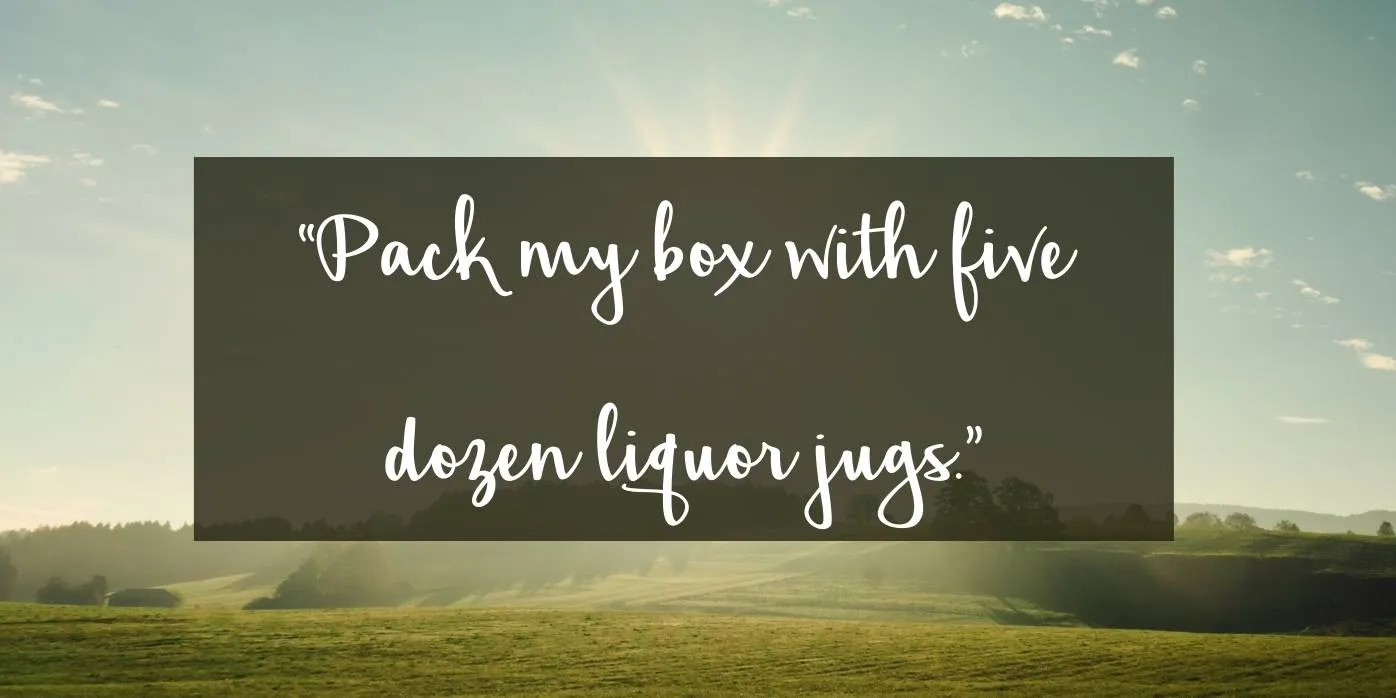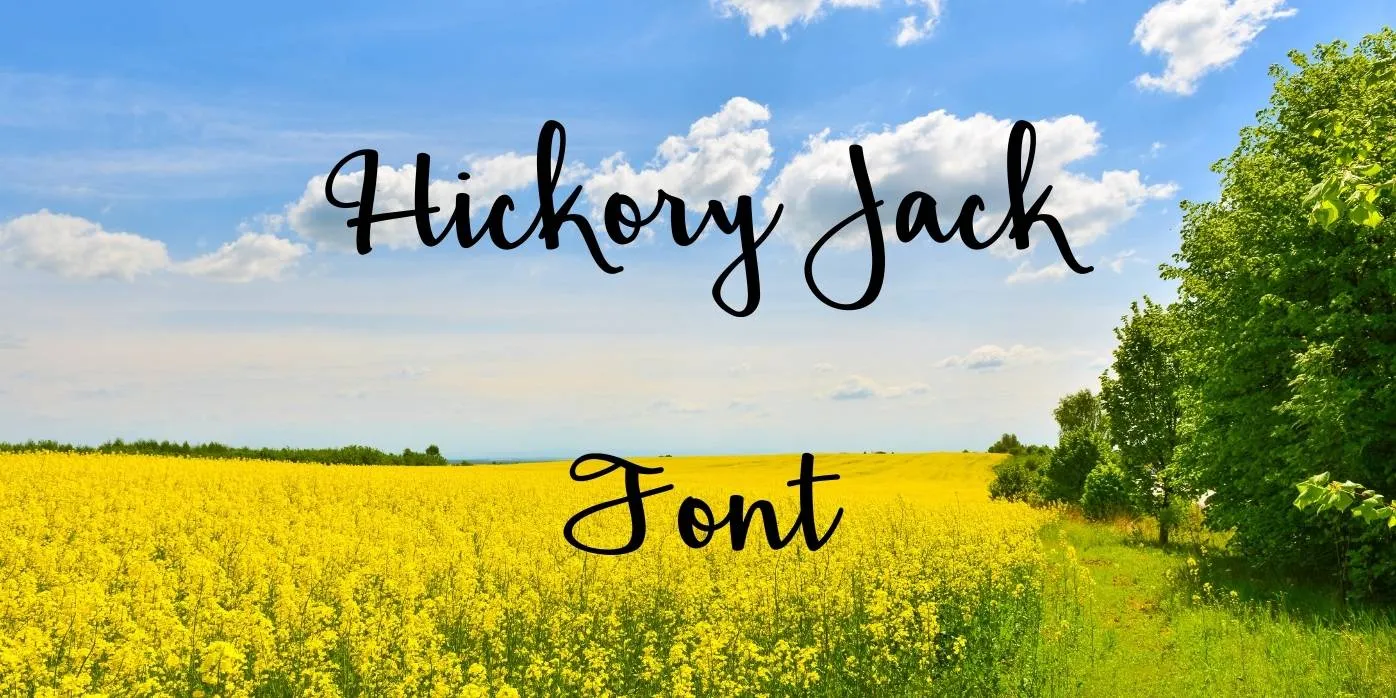
Hickory Jack Font
Hickory Jack Font is designed by very Brittney Murphy Design. This classic typeface belongs to the Handwritten font family. It is a very legible font, perfect for titles, headlines, and large text blocks. This typeface has all the information you need to use this typeface effectively in your designs.
This typeface is perfect for invitations, branding, headline, and other creative designs. This typeface includes special characters and diacritics. Some of its characters are Uppercase, Lowercase, symbols, and many more. This font has a classy and modern style that is perfect for your next project.
This typeface has keen and clean textures. One important thing that you should remember this typeface will provide a tool generator that is very helpful to make a beautiful and stunning design.